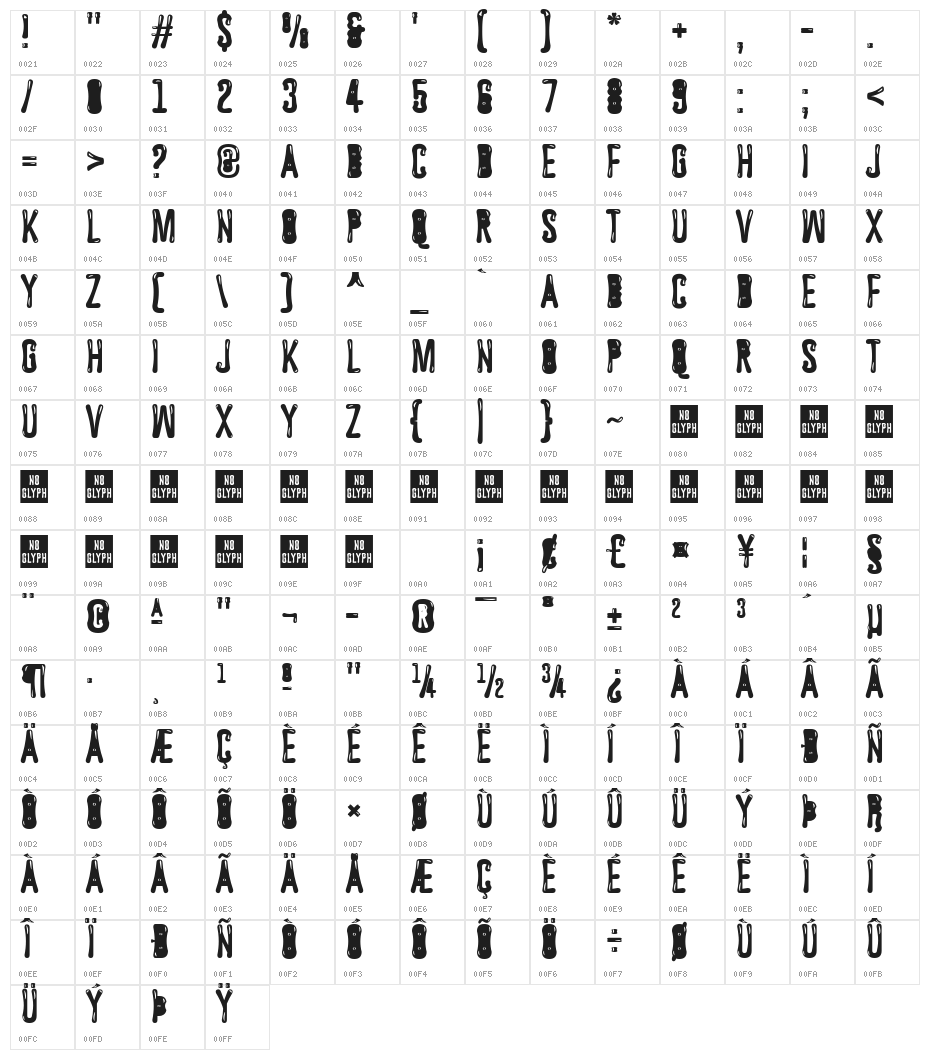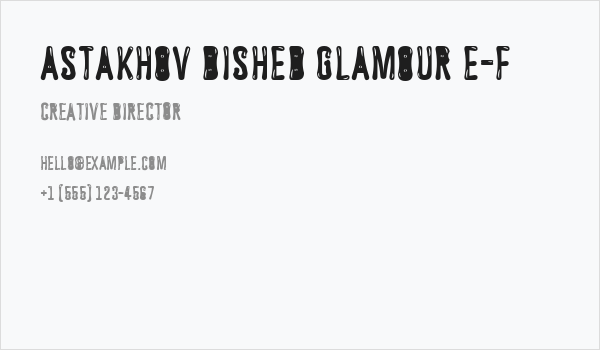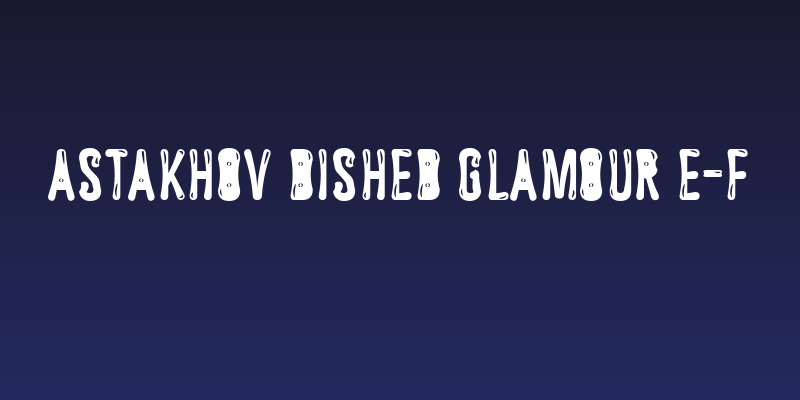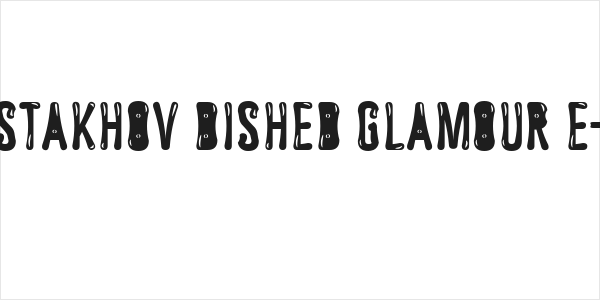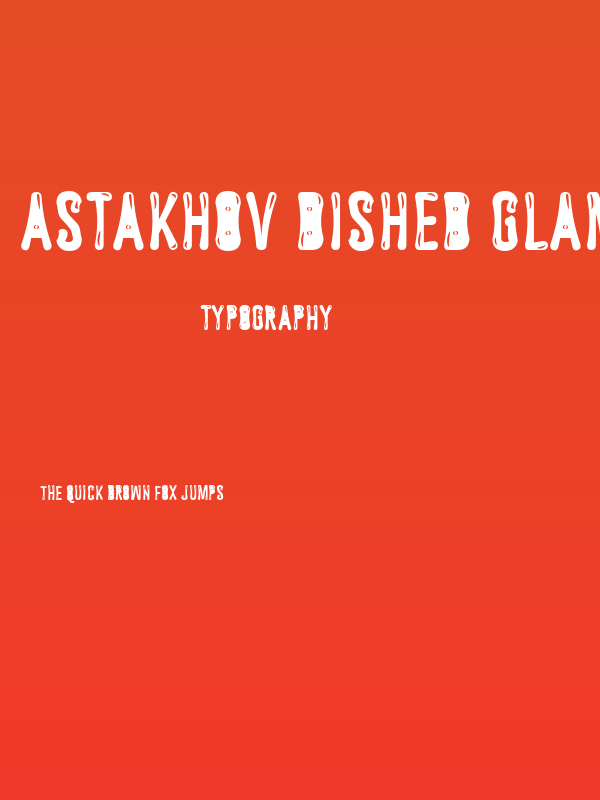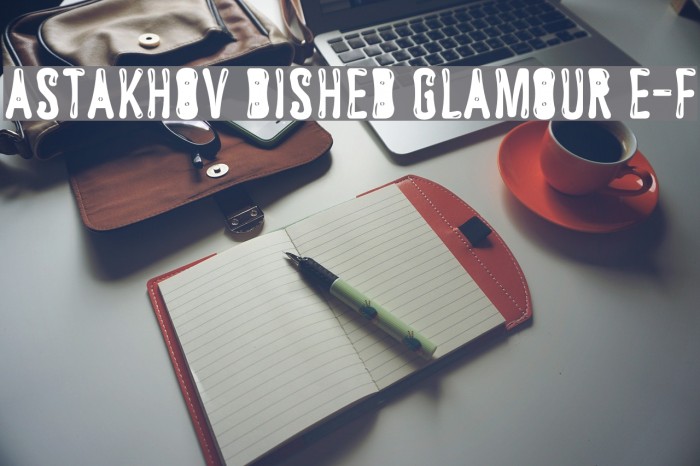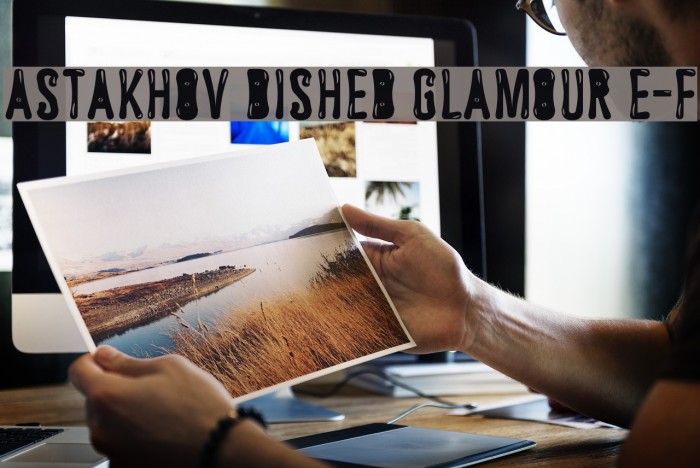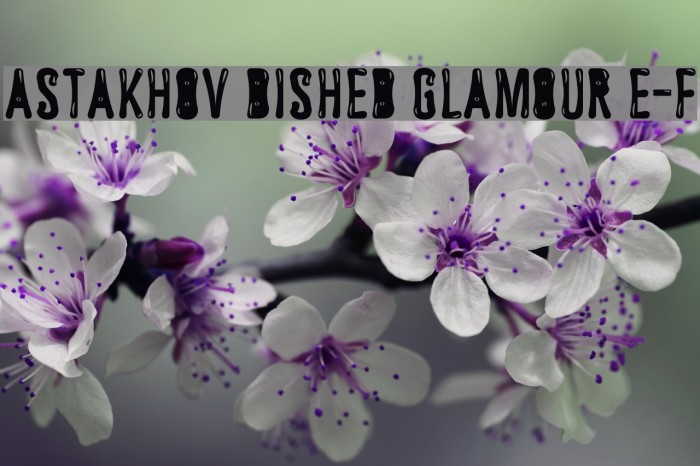
Astakhov Dished Glamour E-F Font
Astakhov Dished Glamour E-F Description
This font features a bold and playful design with a unique, liquid-like appearance. The characters are thick and rounded, with irregular shapes that give them a dynamic and fluid feel. The uppercase and lowercase letters maintain a consistent style, with exaggerated curves and a sense of movement. The numbers and special characters follow the same aesthetic, making the font cohesive and visually striking. This font is ideal for projects that require a fun and eye-catching look, such as posters, advertisements, or branding for creative industries.
| Proposed Projects | Ideal for posters, advertisements, branding, and creative projects. |